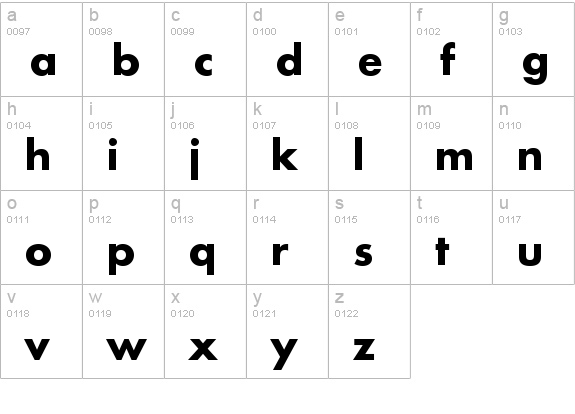
Futura Bold is a strong, high-contrast variant in the Futura typeface family \xE2\x80\x94 well suited to headlines, attention-grabbing titles, and strong calls-to-action.
Futura Bold is a timeless and versatile typeface that exudes modernity and sophistication. Its clean lines and geometric shapes make it a popular choice for a wide range of design projects, from branding to editorial design. The bold weight of Futura Bold commands attention and adds a sense of strength to any text it is applied to. One of the best features of Futura Bold is that it is free to download at FontsMarket.com. This means that you can easily access this high-quality font for your personal or commercial projects without any cost. With its sleek and impactful design, Futura Bold is sure to make a statement in any design application.